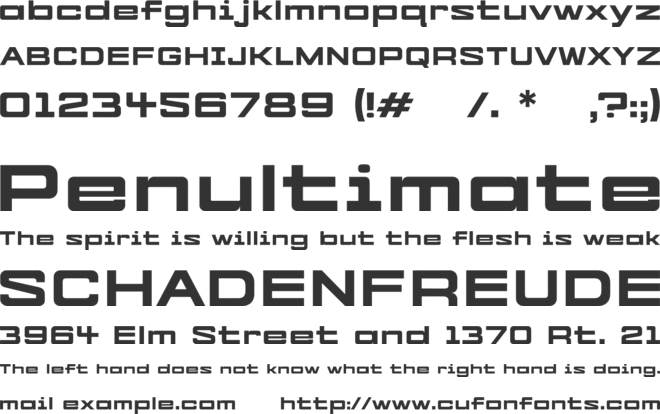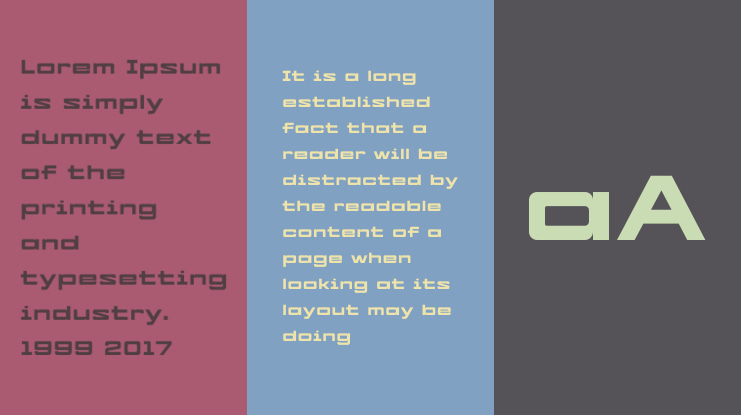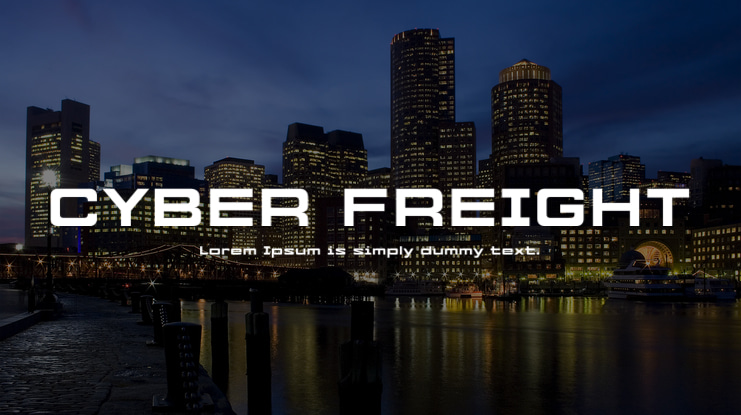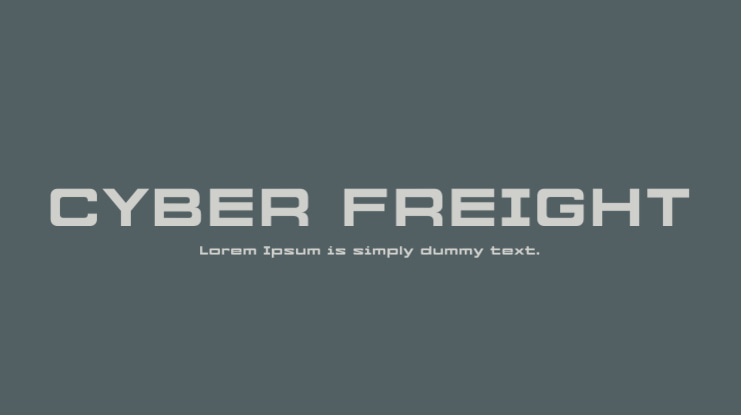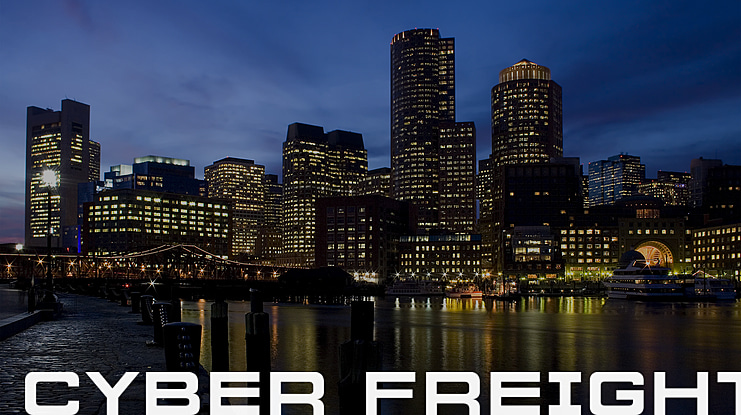
CYBER FREIGHT Font
Jamie Ferrato
Cyber Freight is a font free for personal use. Inspired by cyberpunk and outrun influence, this font gives a rad industrial feel and is best suited for large display purposes.